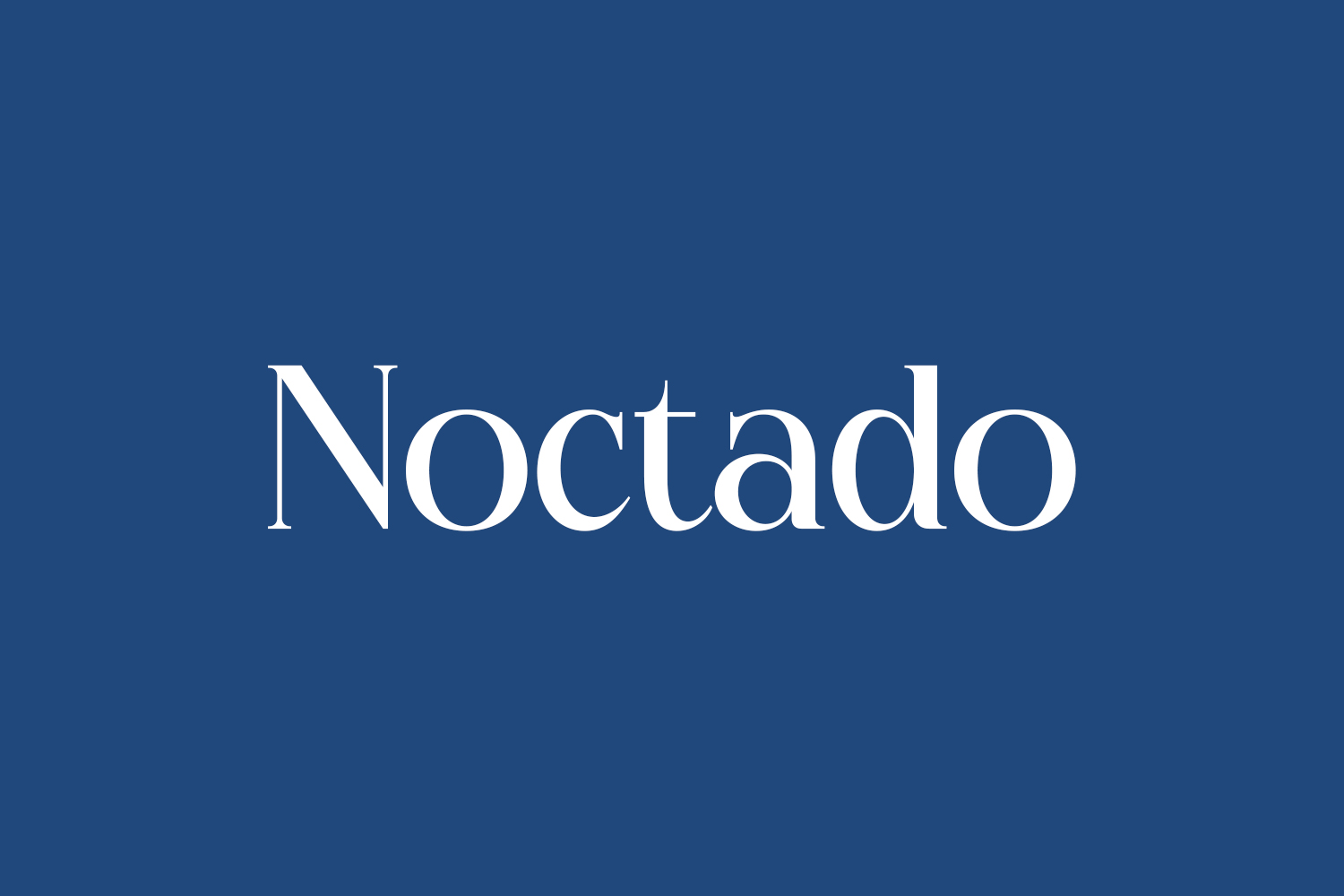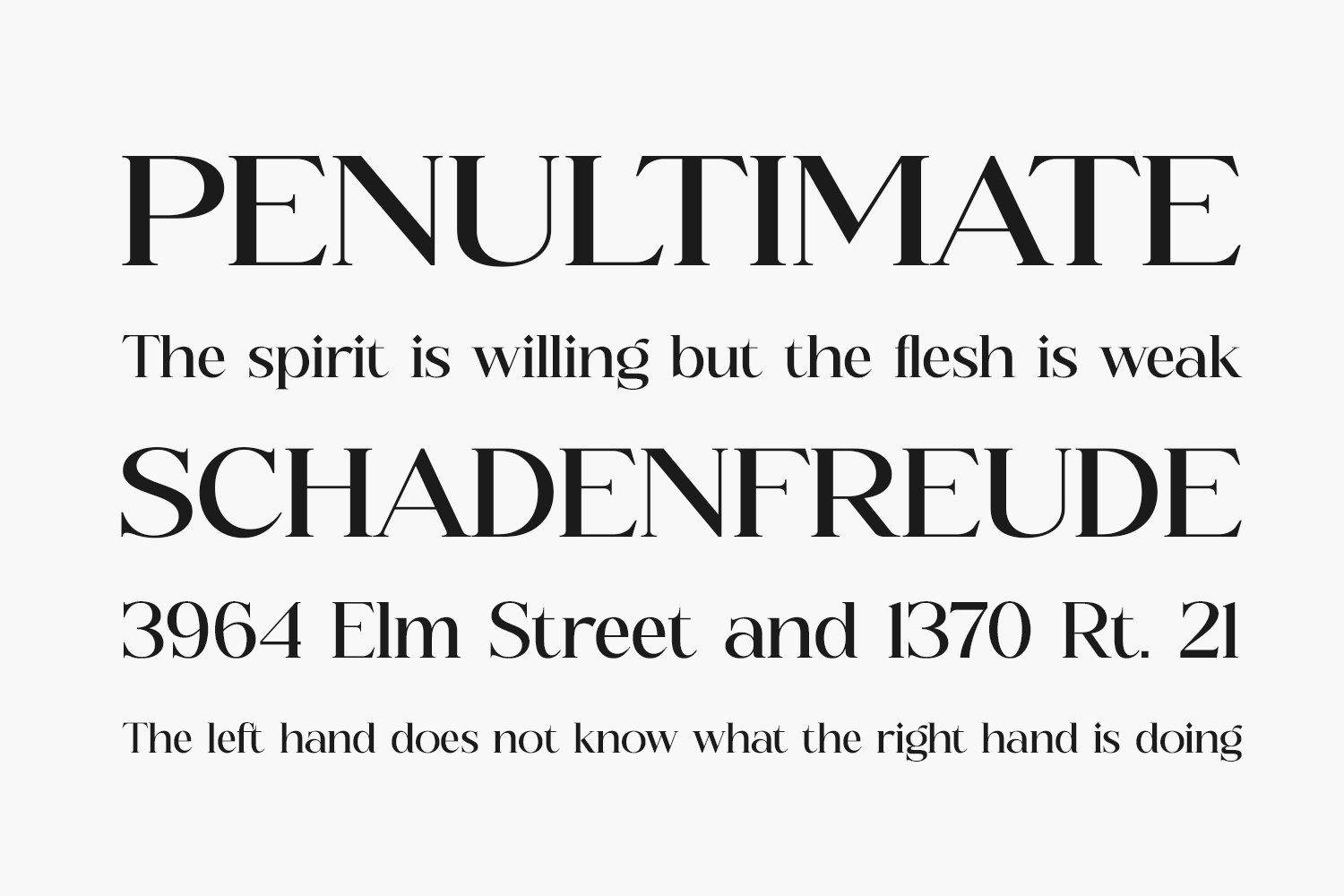
Experience the contemporary allure of Noctado Free Font, a sophisticated serif font seamlessly blending modern aesthetics with classic charm. Ideal for creating refined and luxurious logos, captivating book or movie titles, stylish fashion brand identities, compelling magazine layouts, chic clothing designs, exquisite lettering, inspiring quotes, and a myriad of other design applications. Elevate your creative projects with Noctado’s distinctive style and timeless appeal. Download the font for free if you need it for personal use or purchase the full version for commercial use.